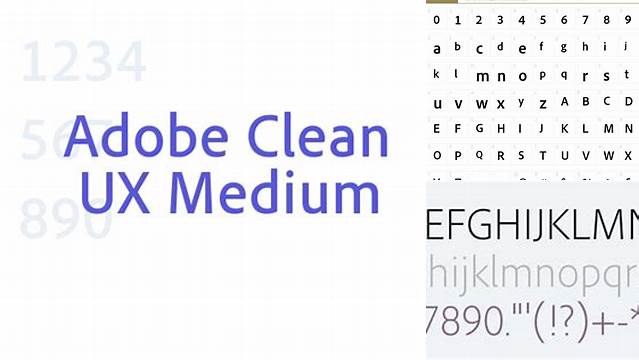
Are you looking for a clean, modern, and highly readable font for your next design project? Look no further than the Adobe Clean UX font! This versatile typeface, designed by the renowned Adobe Type team, is perfect for a wide range of applications, from user interfaces and websites to print materials and presentations. In this comprehensive guide, we'll delve into everything you need to know about the Adobe Clean UX font, including where to download it for free, its key features, and how to effectively use it in your designs. So, guys, buckle up and let's dive in!
What is Adobe Clean UX Font?
Adobe Clean UX is a sans-serif typeface meticulously crafted by Adobe's in-house type designers. It's designed with clarity and legibility in mind, making it an excellent choice for user interfaces (UX) and other digital applications where readability is paramount. Its clean lines and modern aesthetic contribute to a professional and approachable look, ensuring your message is conveyed effectively. This font family is not just another typeface; it's a testament to Adobe's commitment to providing designers with the best tools for their craft. The thoughtful design behind Adobe Clean UX ensures that it performs exceptionally well in a variety of contexts, from small body text to large, impactful headings. Its versatility stems from its neutral appearance, which allows it to blend seamlessly with various design styles and color palettes. Whether you're working on a corporate website, a mobile app, or a print brochure, Adobe Clean UX is a reliable choice that will enhance the overall visual appeal and readability of your project. Moreover, the font's design considers accessibility, ensuring that it is legible for users with visual impairments. This commitment to inclusivity makes Adobe Clean UX a responsible choice for designers who prioritize user experience for everyone. Its geometric structure and open forms contribute to its legibility, making it easy to read even at smaller sizes or on screens with lower resolutions. In essence, Adobe Clean UX is more than just a font; it's a carefully engineered tool that empowers designers to create visually appealing and user-friendly designs.
Key Features of Adobe Clean UX Font
- Exceptional Legibility: Adobe Clean UX excels in readability, making it ideal for extended text blocks and user interfaces. Its carefully designed letterforms and spacing ensure that each character is easily distinguishable, reducing eye strain and improving the overall reading experience. This is crucial for applications where users need to consume large amounts of text, such as websites, articles, and ebooks. The font's clarity also makes it a great choice for signage and other environmental graphics, where quick comprehension is essential. The legibility of Adobe Clean UX stems from its open counters and clear, distinct shapes. These features prevent the letters from blurring together, even at smaller sizes or in low-resolution environments. Furthermore, the font's consistent stroke weight and well-balanced proportions contribute to its overall readability, making it a pleasure to read both on screen and in print. By prioritizing legibility, Adobe Clean UX helps designers create content that is accessible and engaging for a wide audience.
- Modern and Clean Design: Its sans-serif design offers a contemporary aesthetic, suitable for a wide range of projects. The font's clean lines and simple shapes give it a timeless quality, ensuring that it remains relevant and stylish for years to come. This is particularly important in the ever-evolving world of design, where trends come and go quickly. Adobe Clean UX's understated elegance allows it to complement a variety of design styles, from minimalist to maximalist. Its neutrality makes it a versatile choice for branding, editorial design, and web design, among other applications. The modern aesthetic of Adobe Clean UX is characterized by its lack of serifs, which gives it a streamlined and uncluttered appearance. This simplicity allows the font to communicate a sense of clarity and professionalism, making it an excellent choice for corporate communications and marketing materials. The font's clean design also makes it easy to pair with other typefaces, giving designers the flexibility to create unique and visually appealing compositions.
- Versatile Application: From websites to print materials, Adobe Clean UX adapts seamlessly to various mediums. This adaptability is one of its greatest strengths, making it a valuable asset for designers who work across multiple platforms. Whether you're designing a website, a mobile app, a brochure, or a presentation, Adobe Clean UX will consistently deliver a polished and professional look. Its versatility stems from its well-balanced proportions and consistent design, which ensure that it looks great in any context. The font's ability to perform well in both digital and print environments is a testament to its thoughtful design. It maintains its legibility and visual appeal regardless of the medium, making it a reliable choice for any project. This versatility also makes it a cost-effective solution for designers, as they can use the same font across all of their projects, ensuring brand consistency and saving time and resources.
- Multiple Weights and Styles: The font family often includes various weights (light, regular, bold) and styles (italic), providing flexibility in your designs. This range of options allows designers to create visual hierarchy and emphasis within their text, guiding the reader's eye and highlighting key information. The different weights of Adobe Clean UX can be used to create contrast and visual interest, while the italic style adds a touch of elegance and sophistication. Having a variety of weights and styles also allows designers to maintain consistency across different parts of a design, ensuring that the overall look and feel is cohesive and professional. For example, a designer might use the bold weight for headings and the regular weight for body text, creating a clear distinction between the two. Similarly, the italic style can be used to emphasize specific words or phrases, drawing the reader's attention to important details.